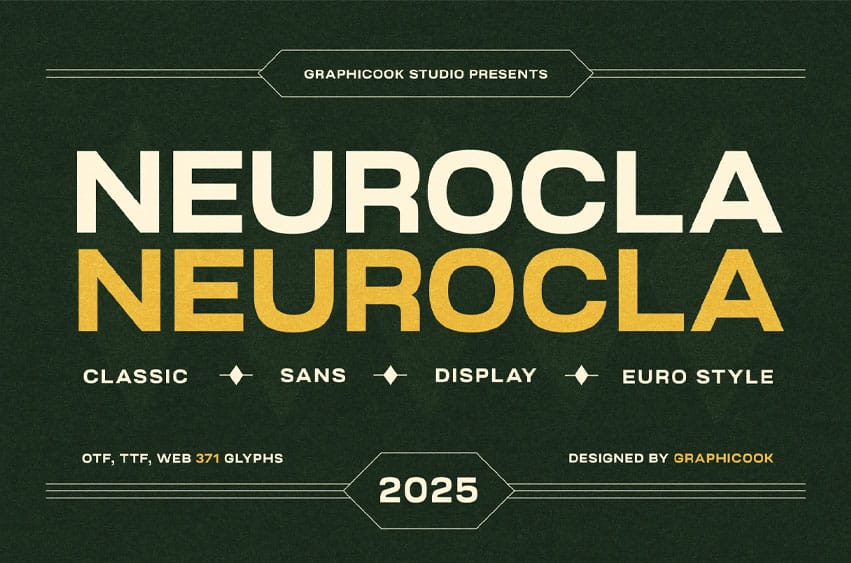
Neurocla Font is a geometric sans-serif font with a clean, minimalist look and a timeless vintage feel. Easy to read and highly versatile, it works well for professional designs, logos, and body text.
Neurocla is perfect for headlines, logotypes, magazines, packaging, quotes, movies, games, cover albums, book covers, and flyers, It’s a perfect solution for creating eye-catching designs that stand out in any context.